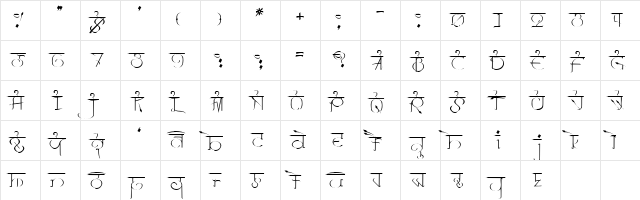
Raj classic Font Preview
Raj classic
Raj classic Font Details
Design Context for Raj Typeface
Raj wears its vintage influences proudly, with letterforms that recall mid-century signage, classic packaging, and nostalgia-driven design.
Font Pairing: Combine Raj with a simple slab or neutral sans — period-accurate companions reinforce the vintage feel without competing for attention.
Pro Tip: Use Raj for headlines and pull quotes rather than body copy — its personality is best appreciated in short, focused bursts.